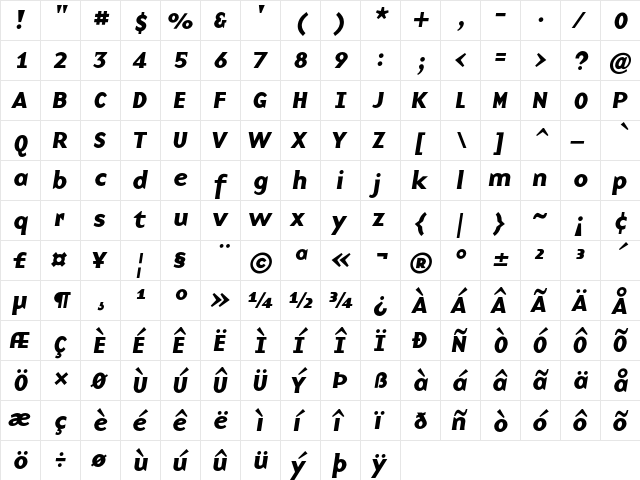
Base9 BI
Design Context for Base9 Typeface
Base9 offers clean, dependable letterforms without strong stylistic allegiance, making it a practical choice for designers who need flexibility.
Pro Tip: Use Base9 in both headline and body roles to test its range before committing to a single application.